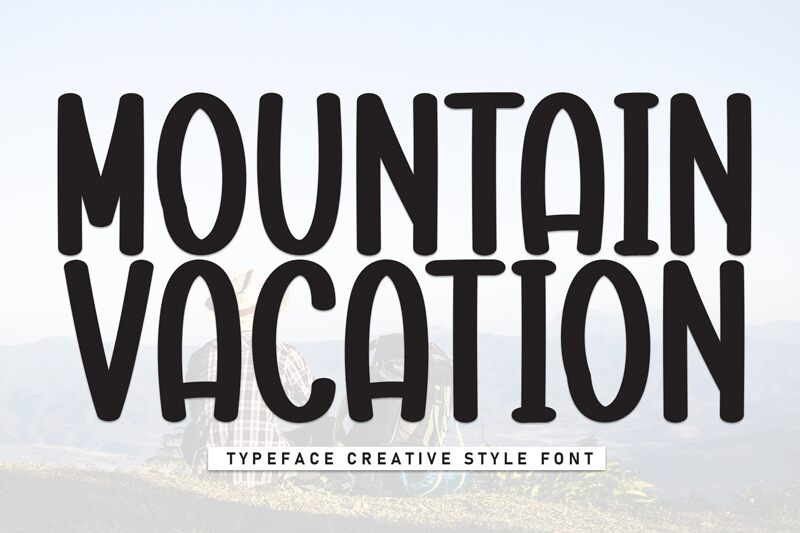
Mountain Vacation
Mountain Vacation font by Andi Moz is a condensed handwritten script that provides simple elegance through its rounded letters. Charming in its own unique way, it is retro, vintage, fun, and will bring a cheerful vibe to your various projects. Any branding or advertising assignment will have strong personality which in turn helps achieve quick recognition.
Being both highly legible and attractive makes it suitable for logos, titles, packaging design, labels, social media posts and covers. Printed needs concerning book covers and magazines as well as digital ones such as websites are made better with this option too.